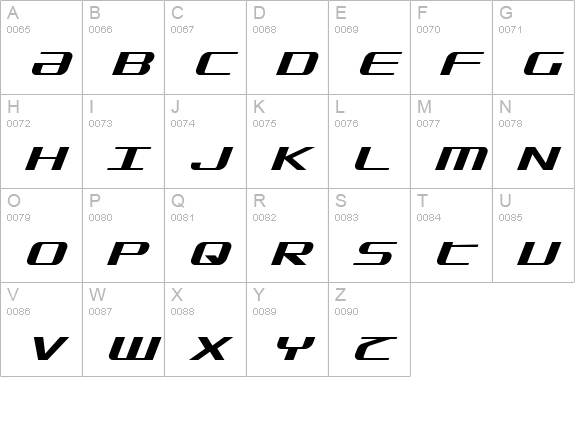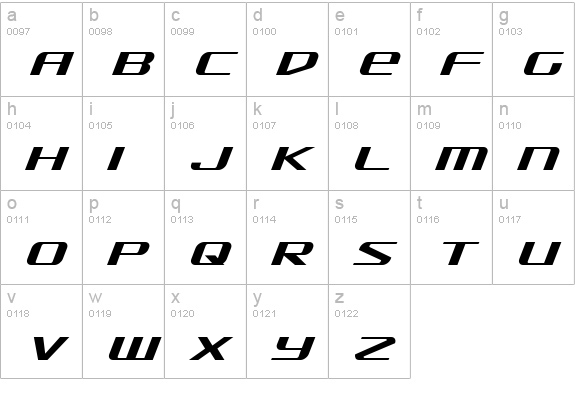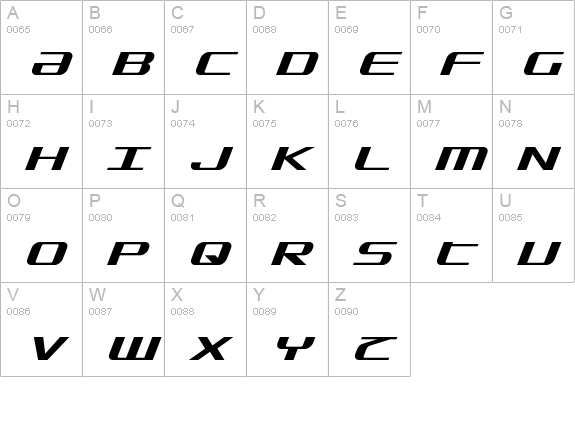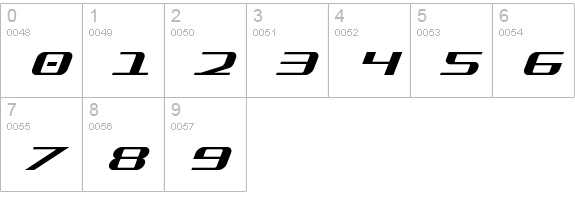
SDF Italic is a distinctive, italic variant in the SDF typeface family \xE2\x80\x94 well suited to design and typography projects.
The SDF Italic font is a sleek and modern typeface that brings elegance and sophistication to any design project. With its stylish slanted appearance, this font is perfect for adding a touch of flair to your text. Whether you are creating a glamorous invitation, a trendy poster, or a professional logo, the SDF Italic font will elevate your design to the next level. Best of all, the SDF Italic font is completely FREE to download at FontsMarket.com. Yes, you read that right - you can enhance your projects with this stunning font at no cost at all. Don't miss out on this fantastic opportunity to access a high-quality typeface that will make your designs stand out. Download the SDF Italic font today and let your creativity shine!